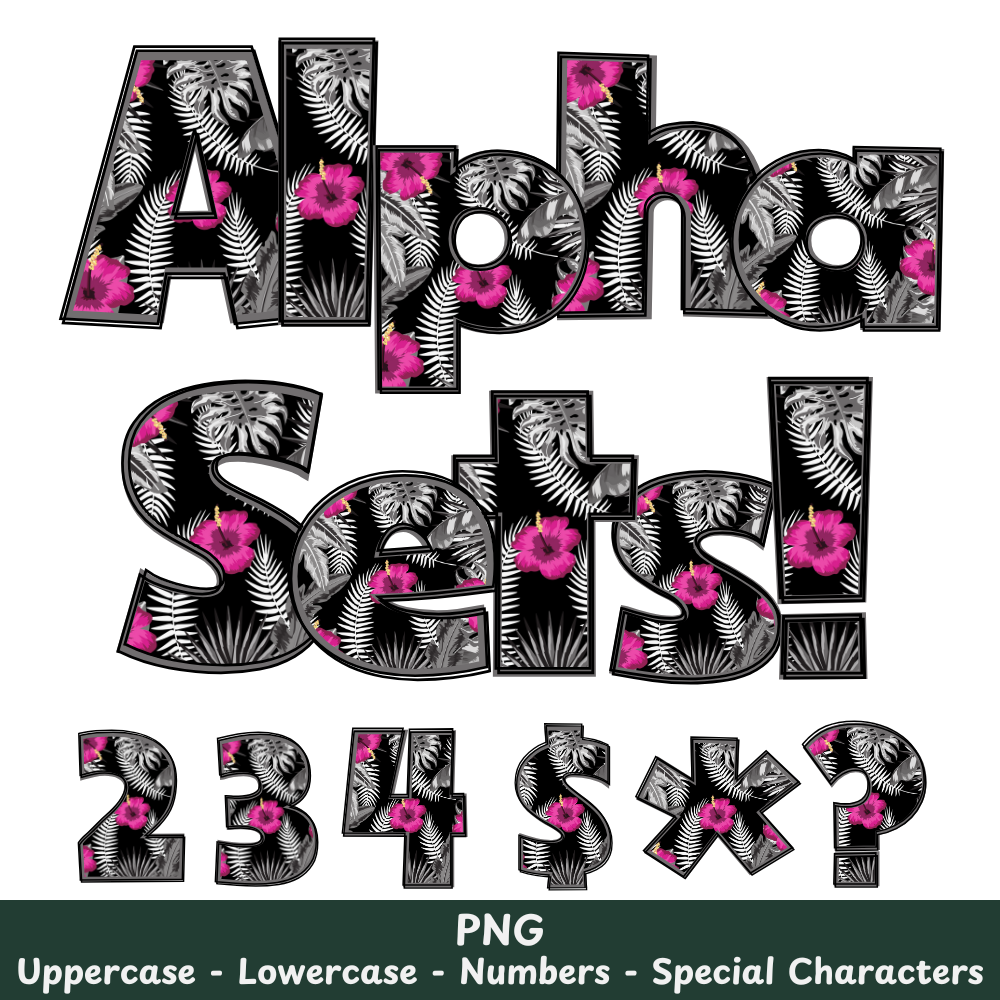
Pink Flowers PNG Font
Pink Flowers Alpha Set PNG Font Pack
This Pink Flowers PNG Font is the perfect addition to your creative projects. With its vibrant pink hue and versatile format, you can easily incorporate it into any craft or sublimation design. Enjoy the benefits of this unique font, perfect for adding a pop of color to your creations.